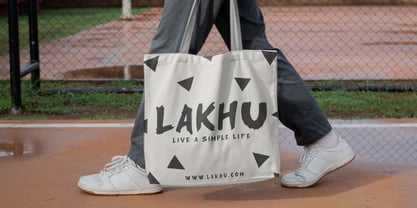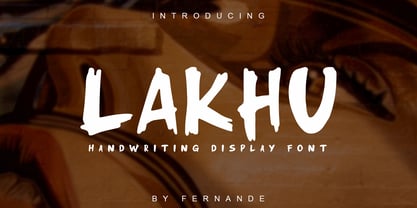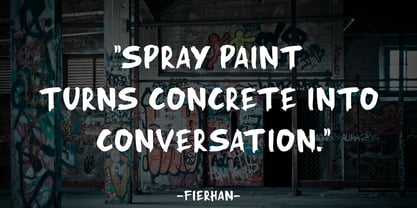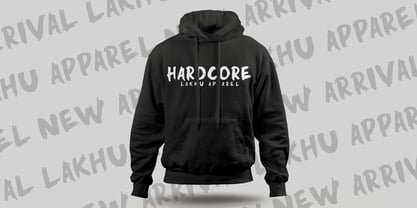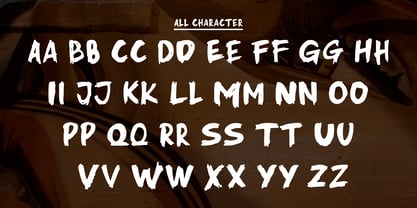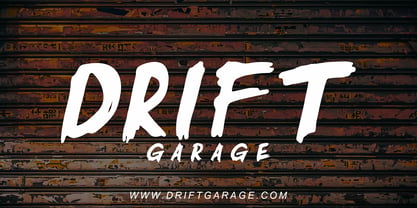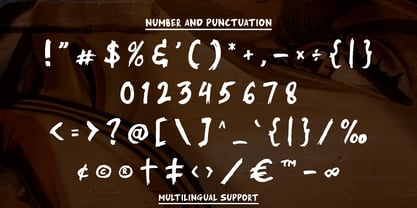
Lakhu
by Fernande
Introducing Lakhu – A Bold Handwriting Display Font
Lakhu is a bold handwriting display font that captures the raw energy of hand-drawn brush strokes. Featuring rough edges, organic shapes, and an expressive handcrafted feel, this font is designed to make a strong visual impact while maintaining excellent readability.
Its authentic and artistic character makes it perfect for posters, branding, logos, packaging, apparel, social media graphics, album covers, headlines, and creative projects that need a bold and distinctive voice.
Whether you're creating modern streetwear designs, eye-catching advertising materials, or expressive branding concepts, Lakhu delivers a powerful handcrafted aesthetic that stands out from the crowd. Bring a bold handmade personality to your next design project with Lakhu.
"Fernande is a type foundry run by Angga Fernandi, specializing in the creation of elegant and lively handwritten typefaces with great precision. With a passion for experimenting with letterforms, it creates unique and expressive fonts. Committed to quality and innovation, it strives to provide distinctive typography that enriches visual storytelling and design aesthetics."